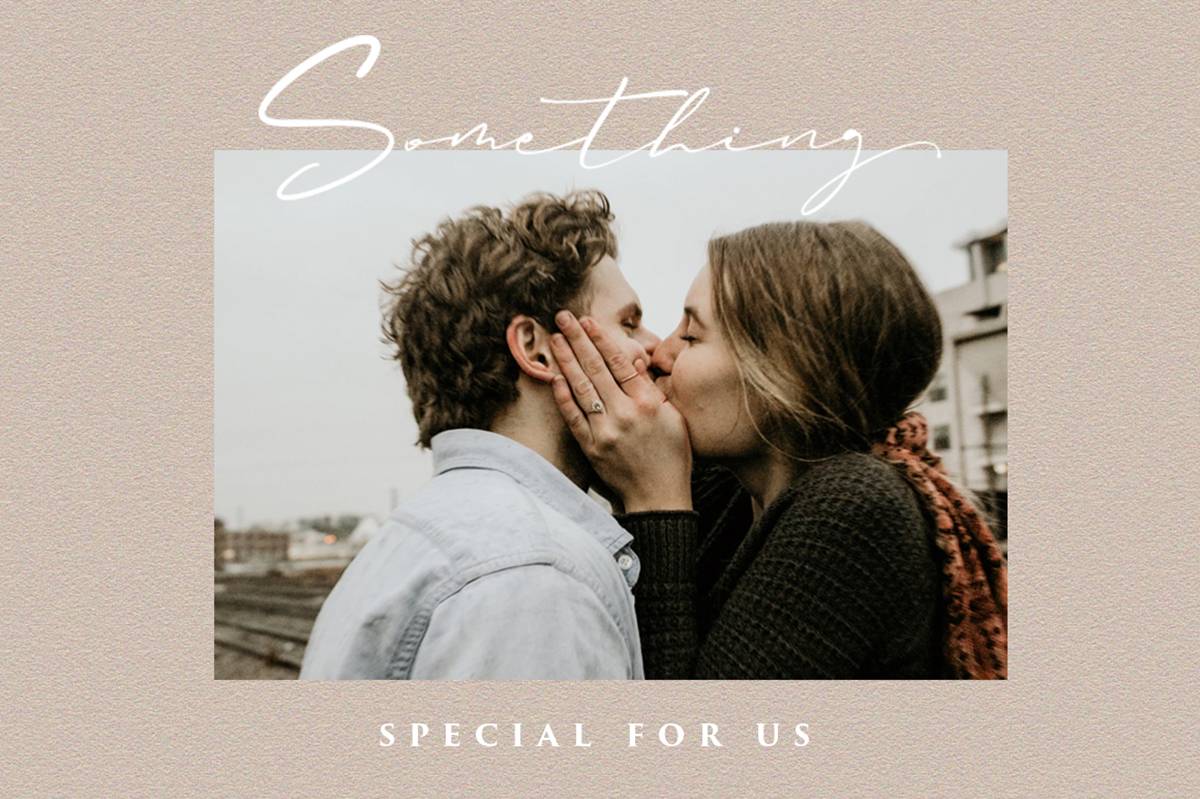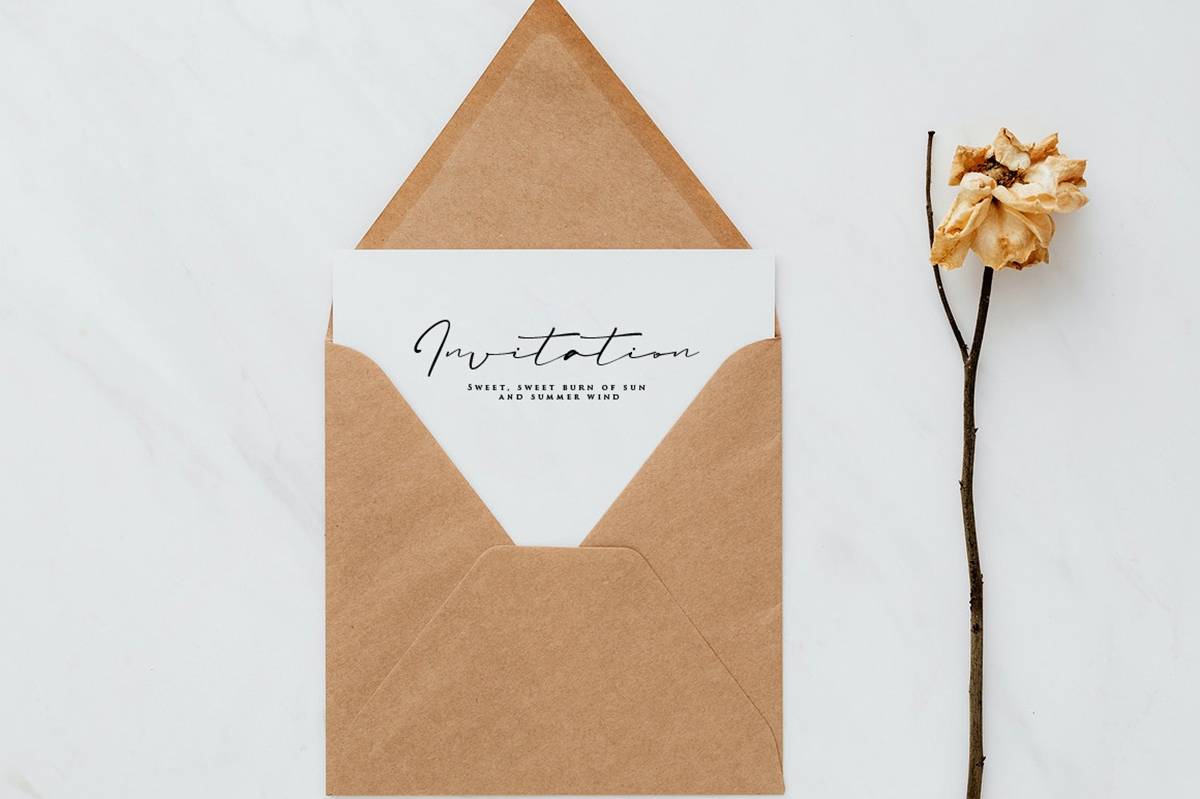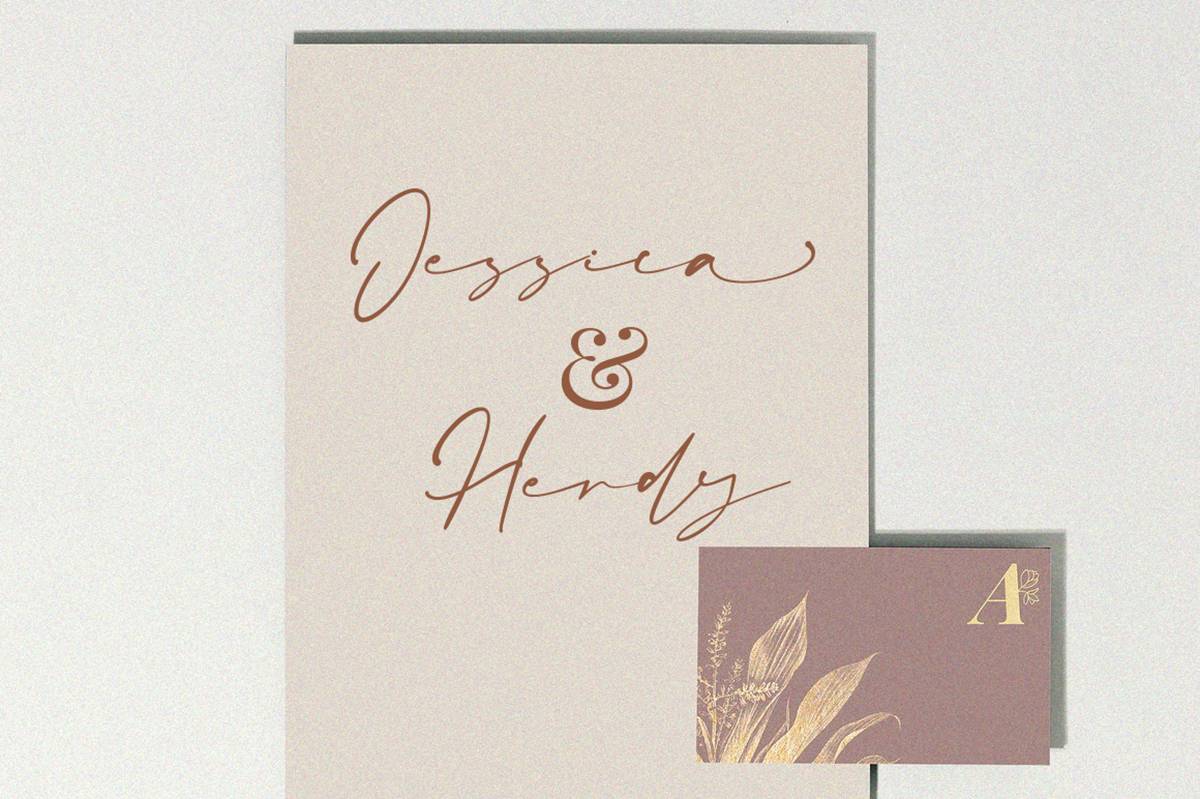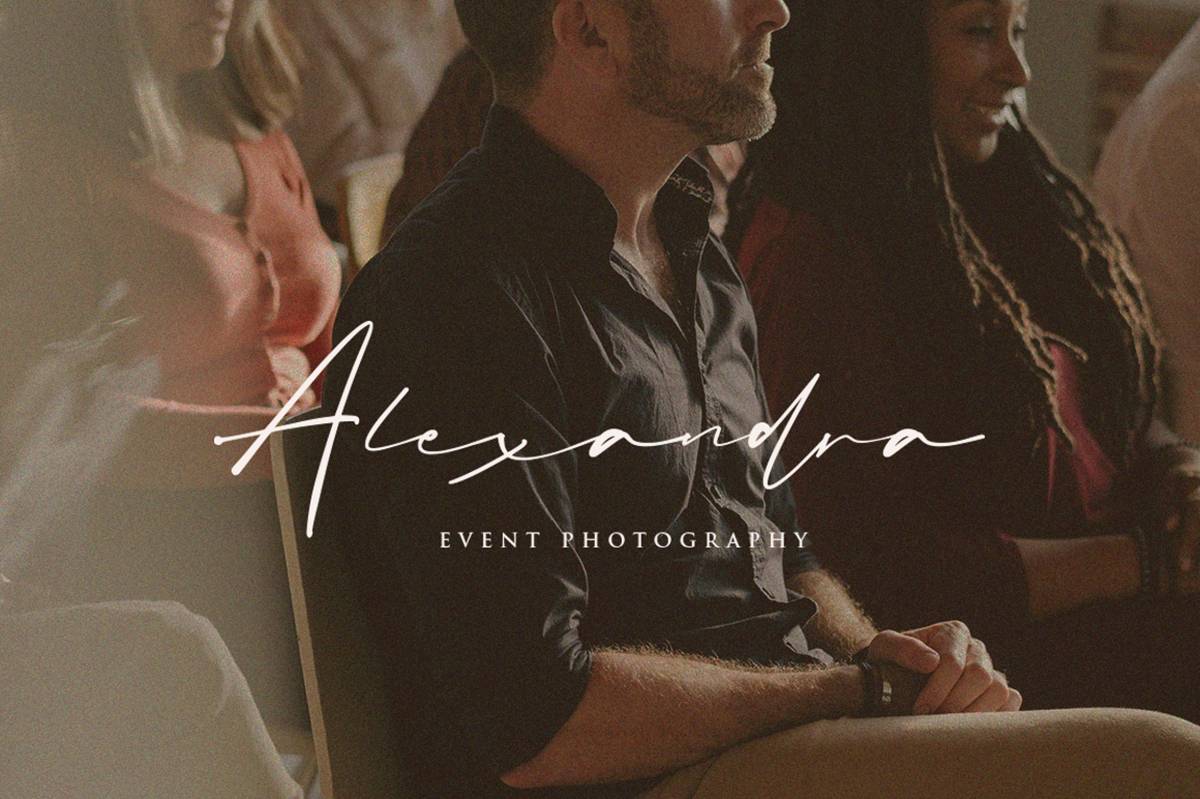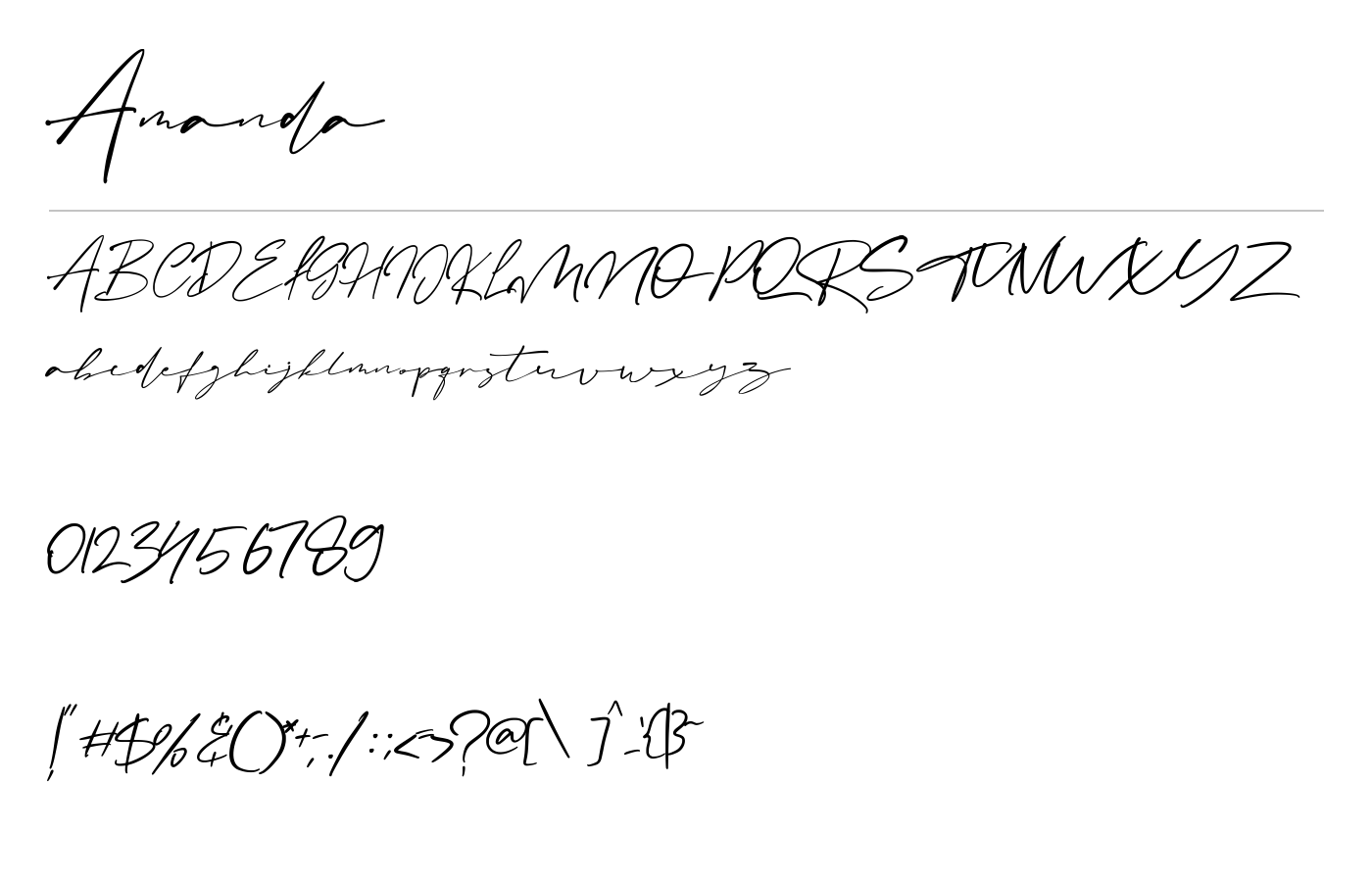
Amanda is a delicate and elegant script font with a handwritten, flowing style that feels personal and charming. Its thin weight and smooth, connected letterforms make it perfect for invitations, branding, and creative projects that want to convey warmth and sophistication. This font works best in headlines or logos where a stylish, intimate touch is desired.
Amanda Font
About Amanda Font
| Font family | Amanda Font |
| Designer | Vultype Co |